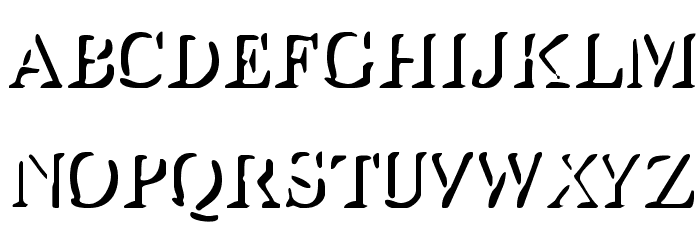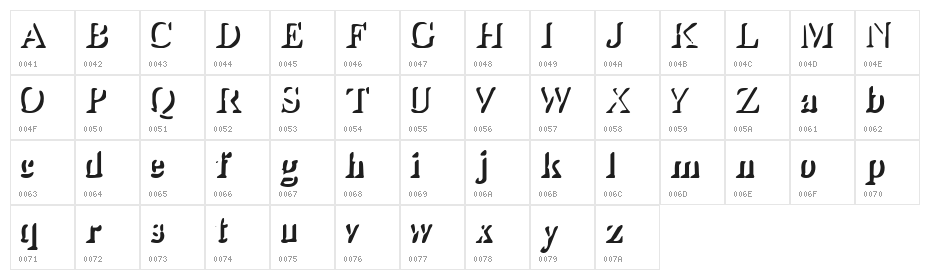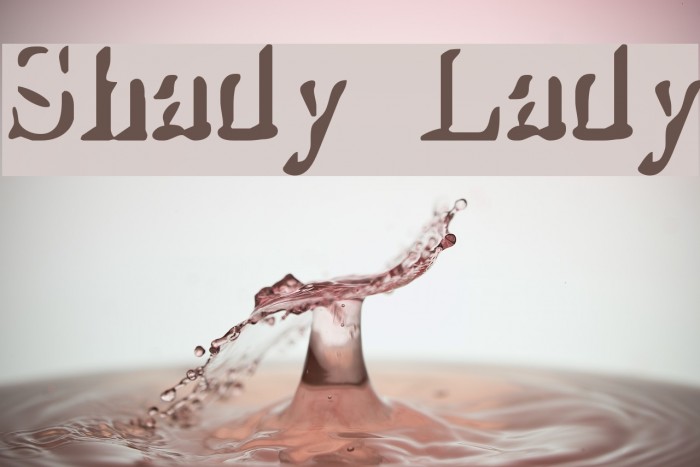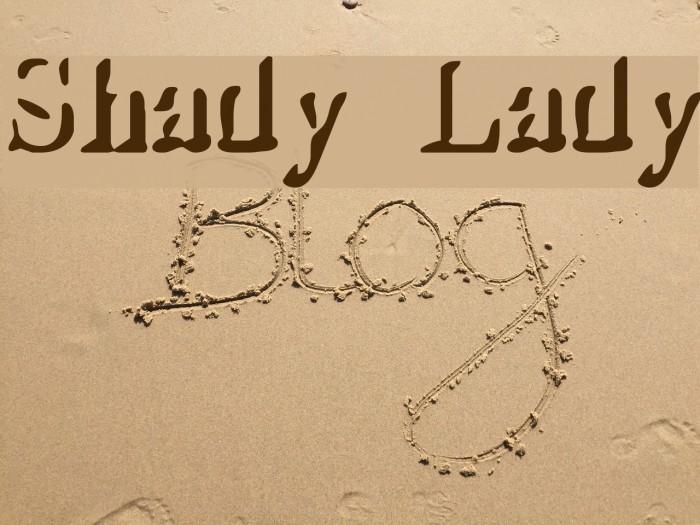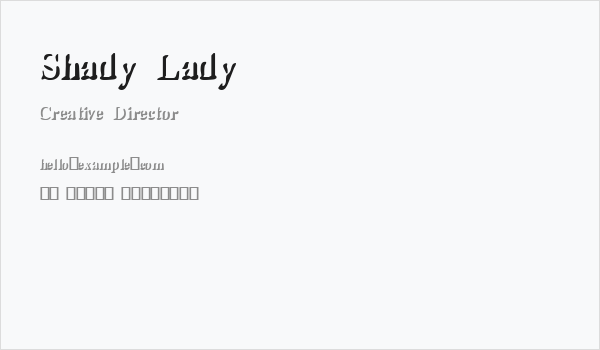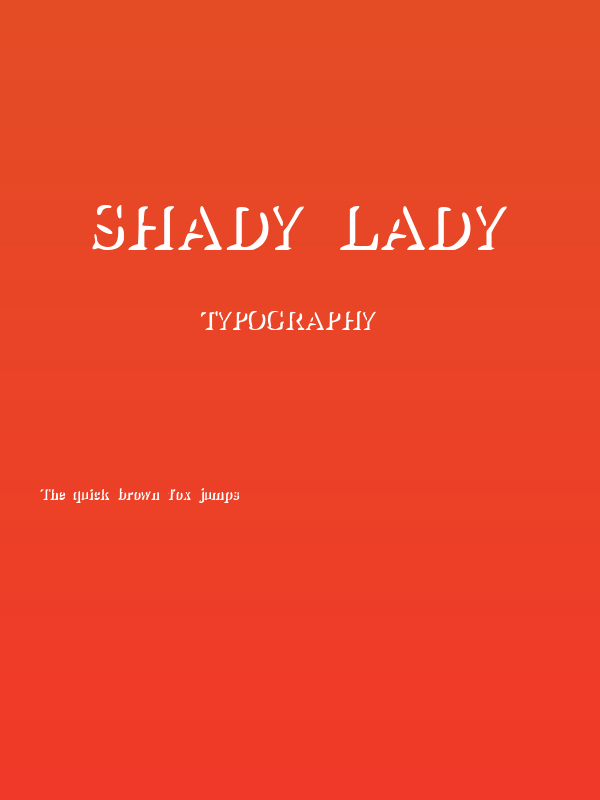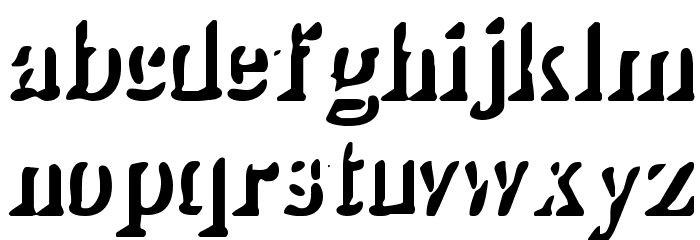
Shady Lady Font
Shady Lady Description
This font features a unique stencil-like design with bold, angular cuts that create a shadow effect within each character. The uppercase and lowercase letters maintain a consistent style, with sharp edges and a modern, industrial feel. The numbers and special characters follow the same aesthetic, ensuring uniformity across all glyphs. The font's distinct appearance makes it stand out, offering a blend of modernity and a touch of vintage charm. Its boldness and high contrast between the thick and thin strokes enhance readability while adding a dramatic flair.